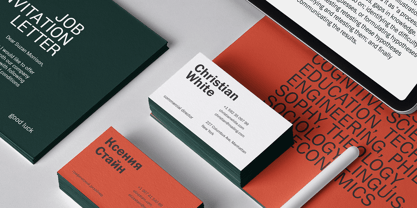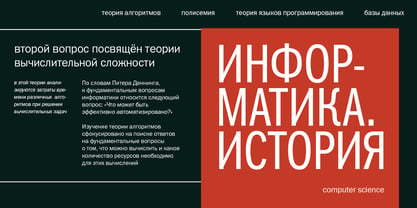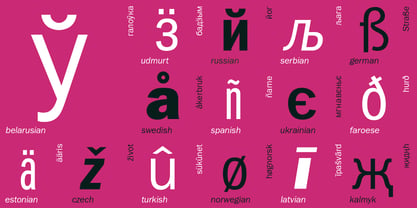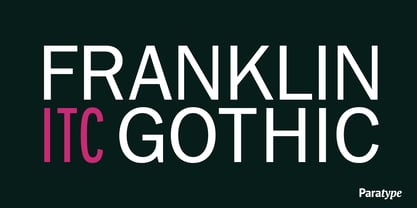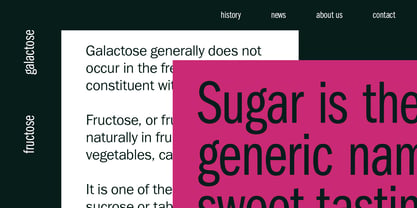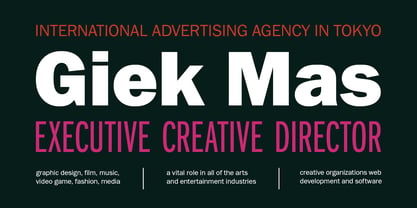
ITC Franklin Gothic™
The ITC Franklin Gothic Font Family was designed by Victor Caruso, Morris Fuller Benton, Dmitry Kirsanov, Isay Slutsker, Tatiana Lyskova, ITC - International Typeface Corp. and published by ParaType. ITC Franklin Gothic contains 20 styles and family package options. More about this family
ITC Franklin Gothic is a typeface with a rich history based on the early American sans serif of the 1900s. Still, its design doesn’t look archaic and is made both for book text setting and for use on the screen. The bold styles of Franklin Gothic work well in headings and advertising.
Franklin Gothic was designed by Morris Benton and published by American Type Founders in 1904. In 1980, Victor Caruso designed its variation, ITC Franklin Gothic, for the International Typeface Corporation.
The ITC version is significantly expanded in weight and is suitable for text setting, headings and display typography, due to slightly narrowed proportions and large x-height.
The Cyrillic version was designed by Isay Slutsker and Tatiana Lyskova for Paratype (ParaGraph) in 1995. Twelve narrow styles were added by Isay Slutsker and Dmitry Kirsanov in 2000.